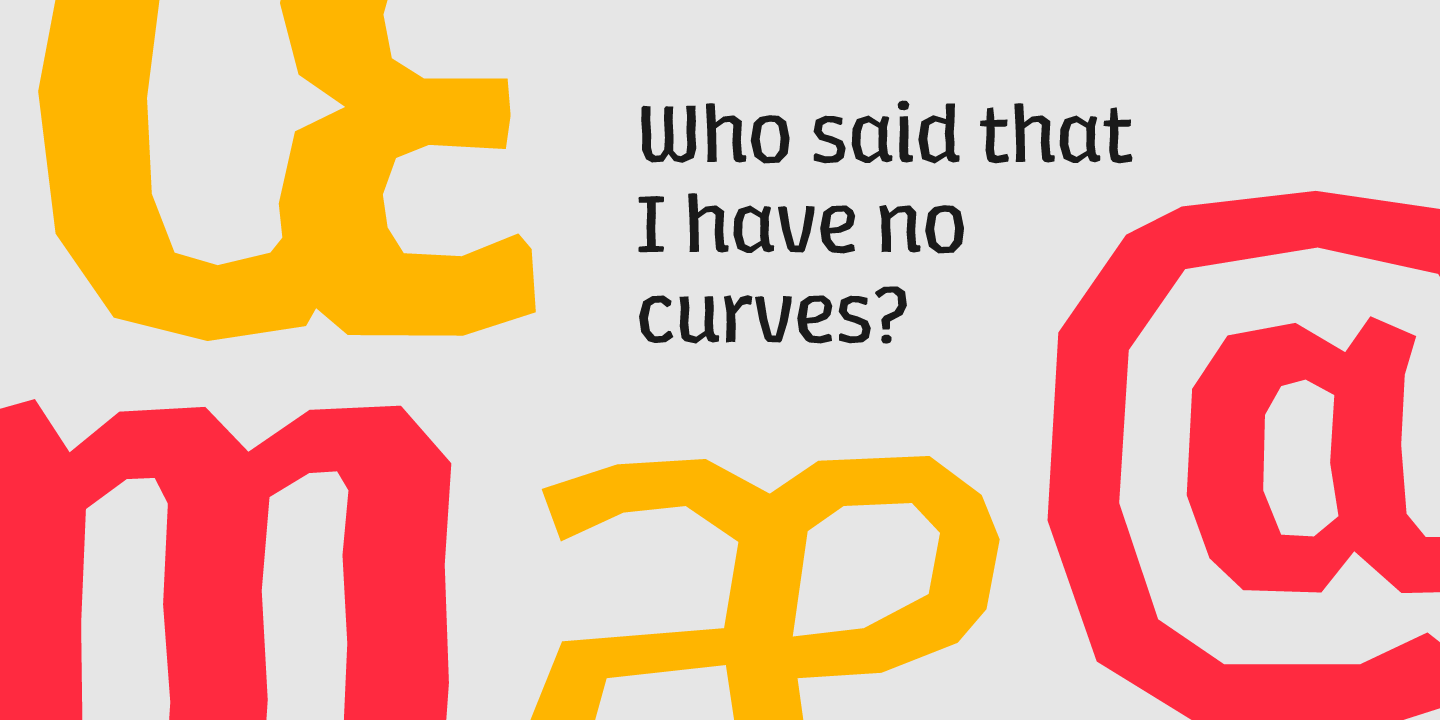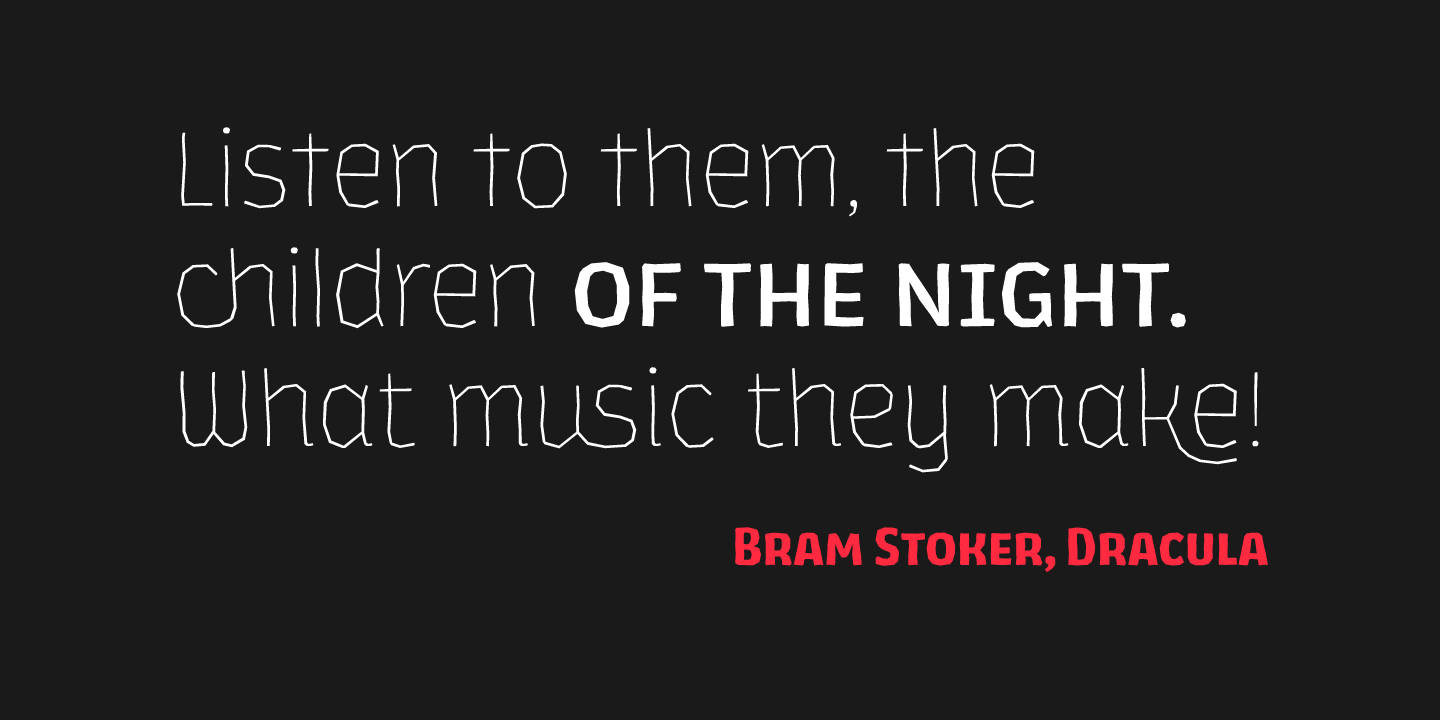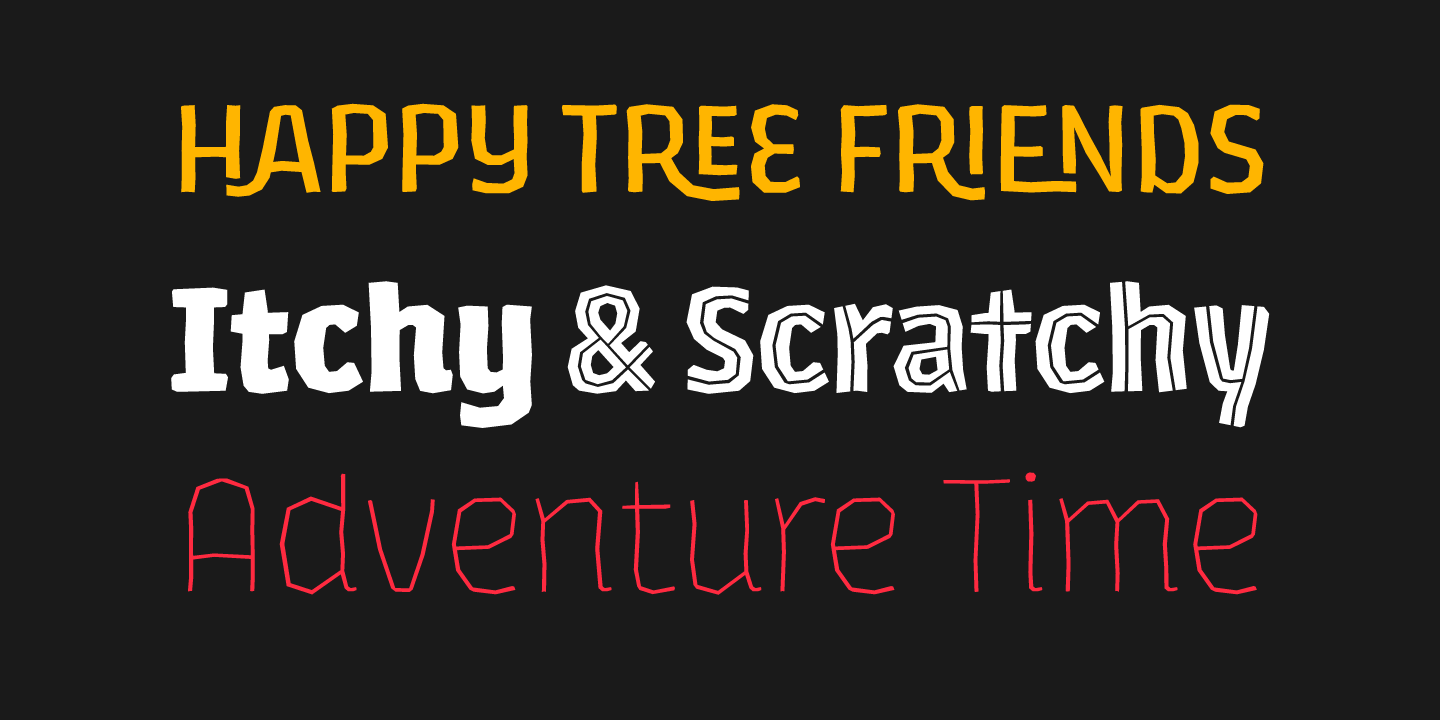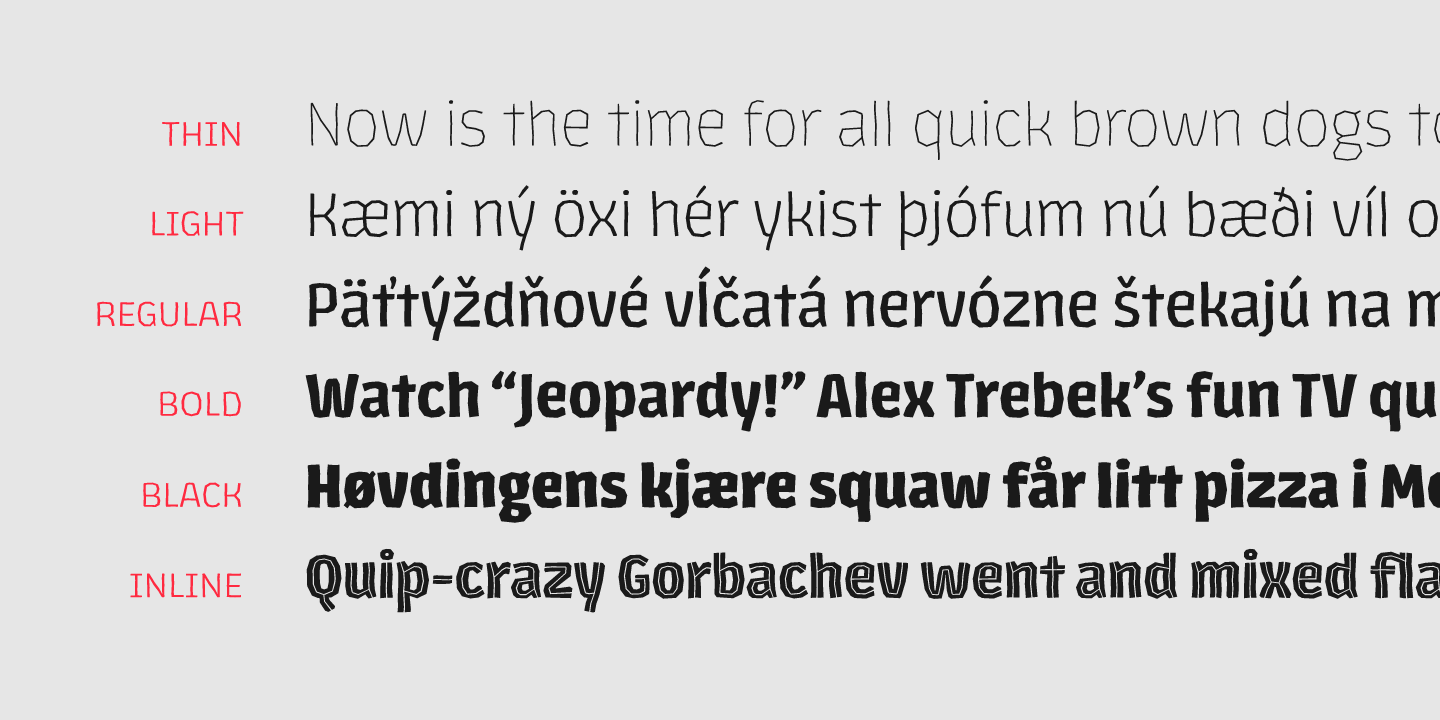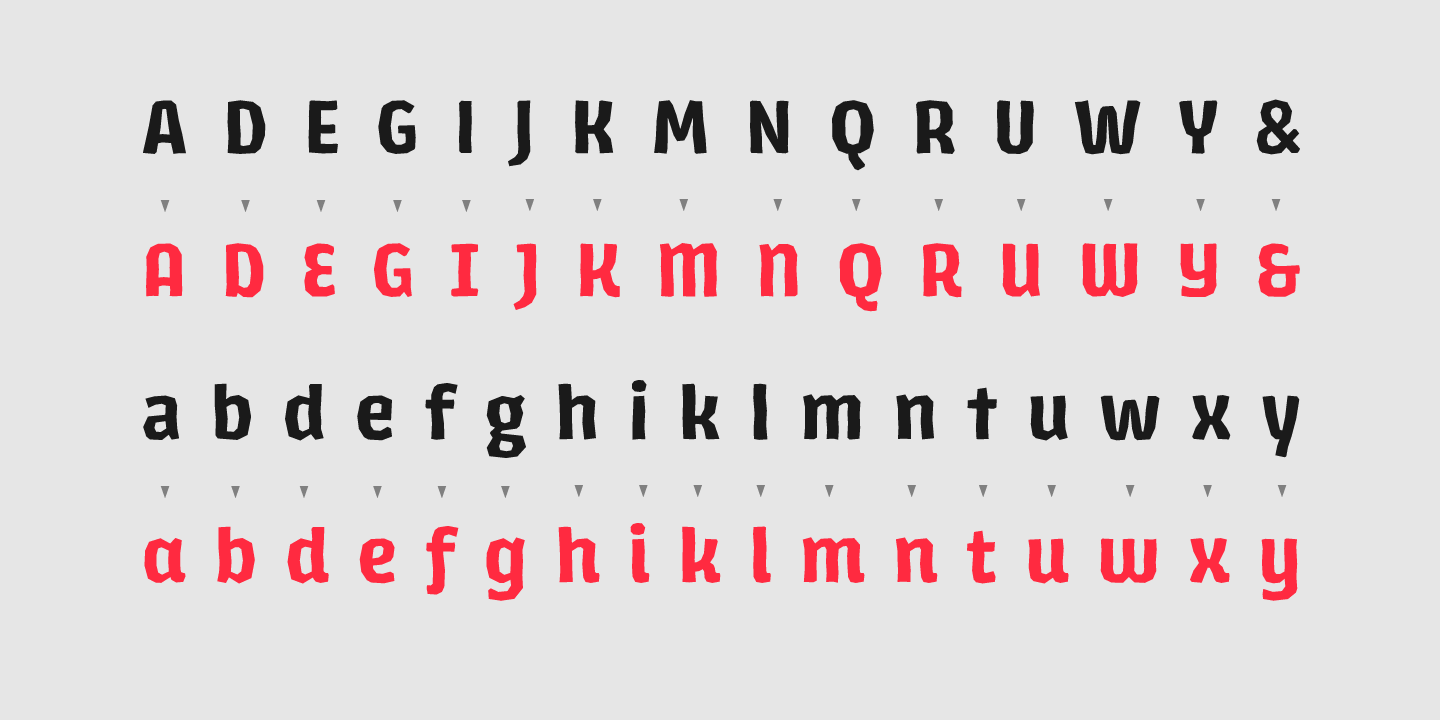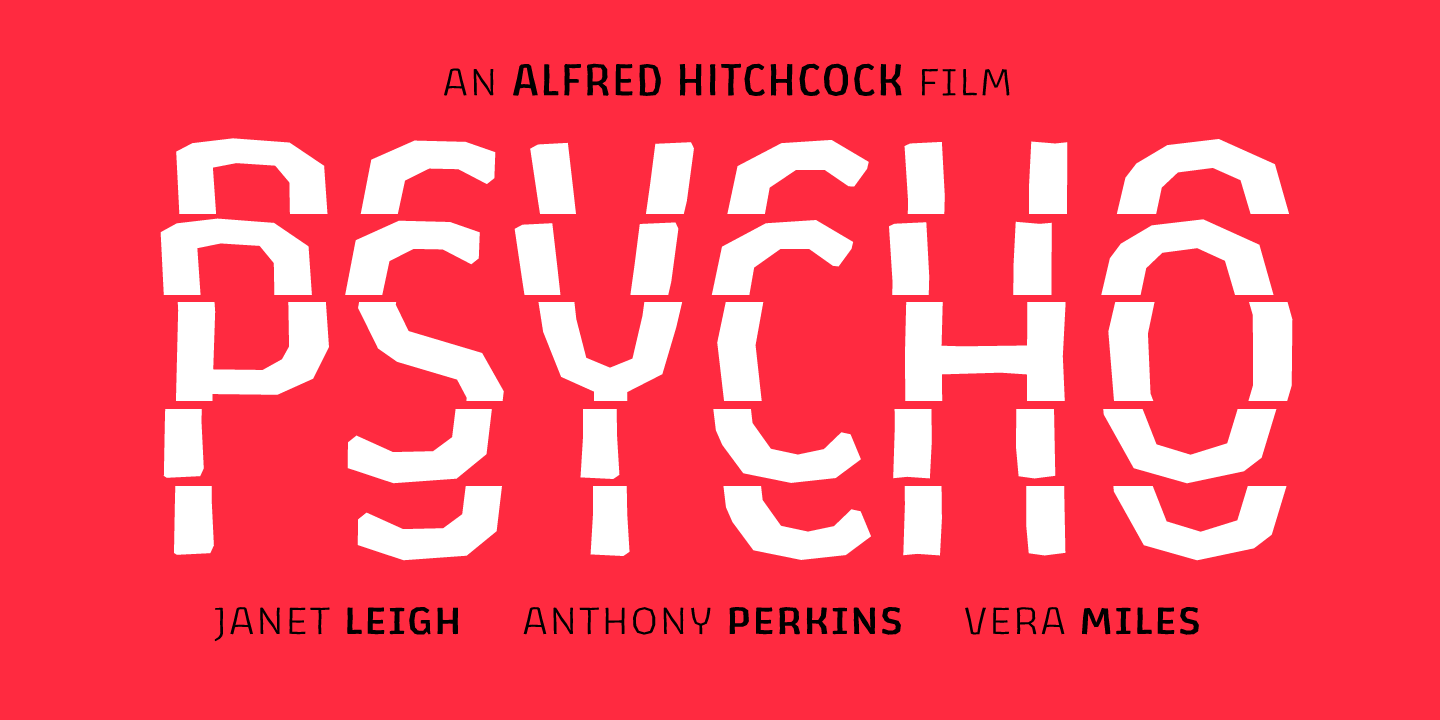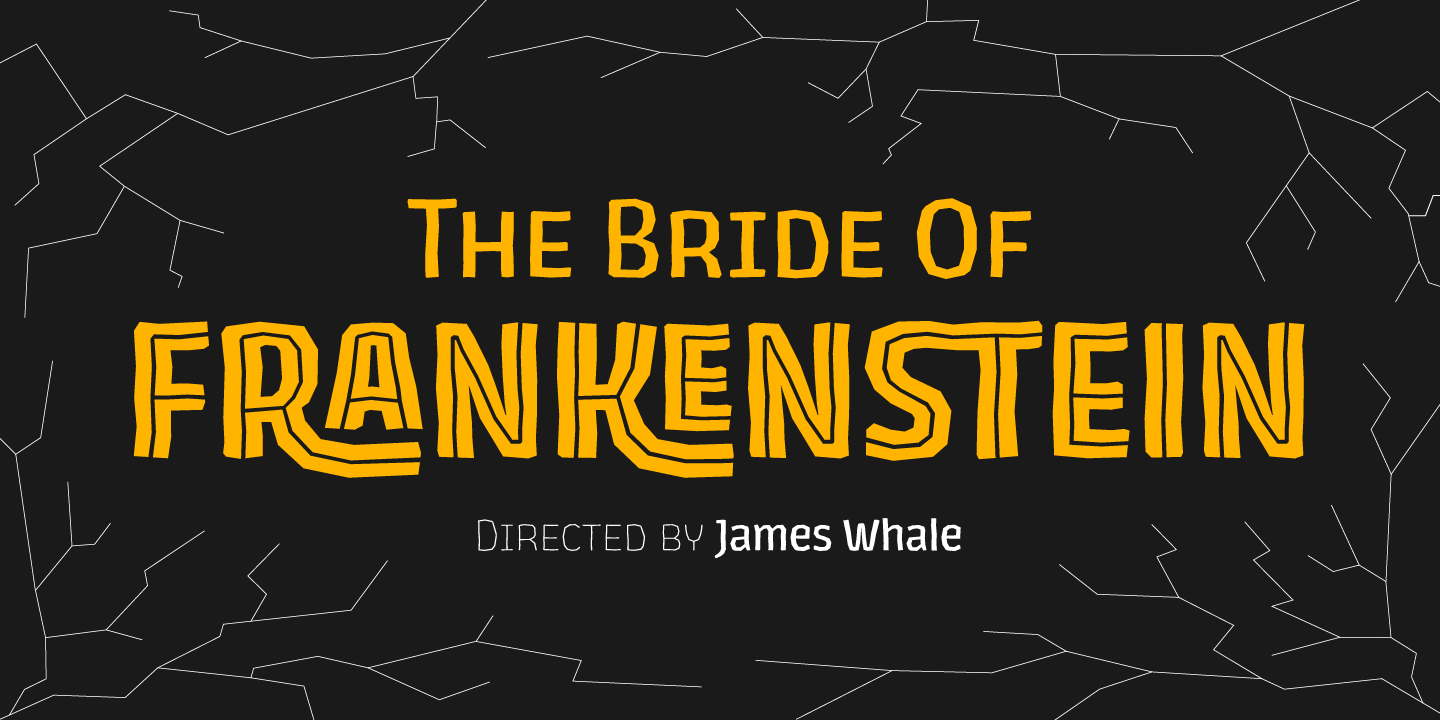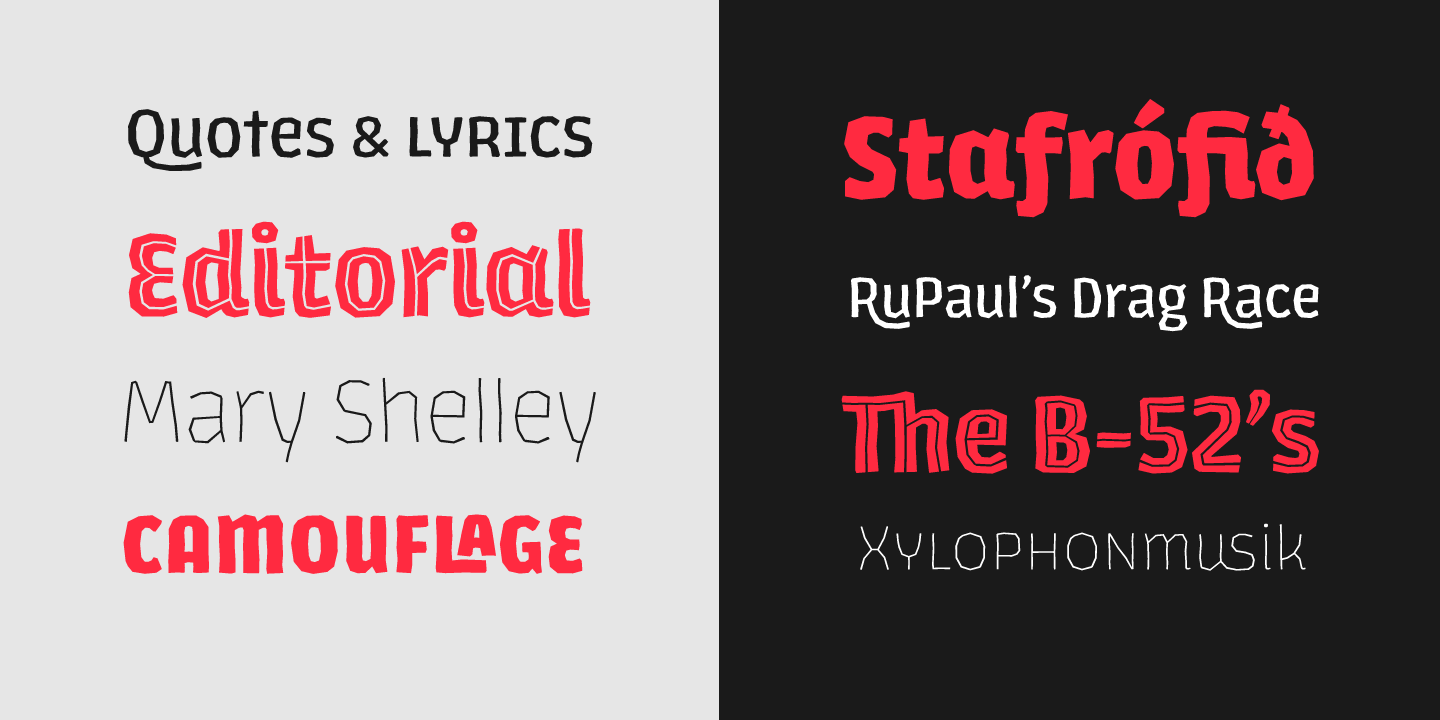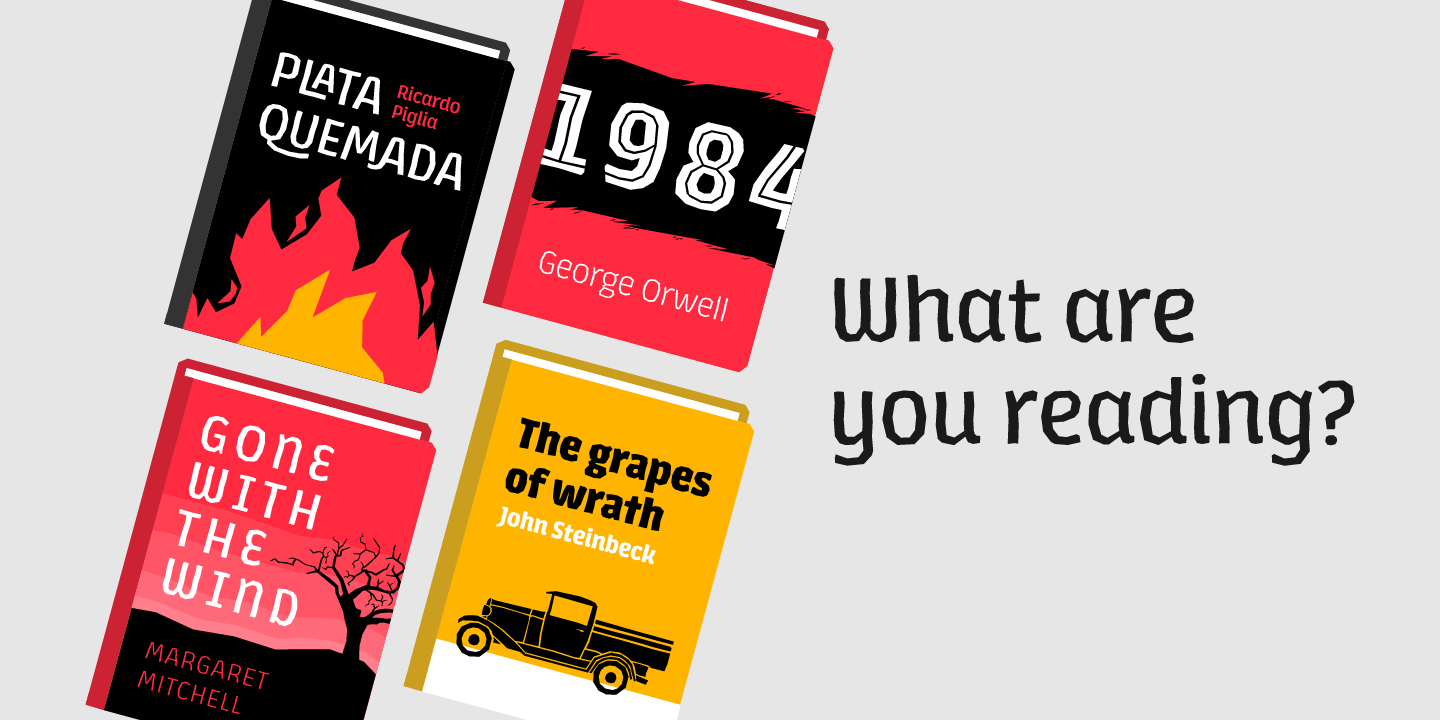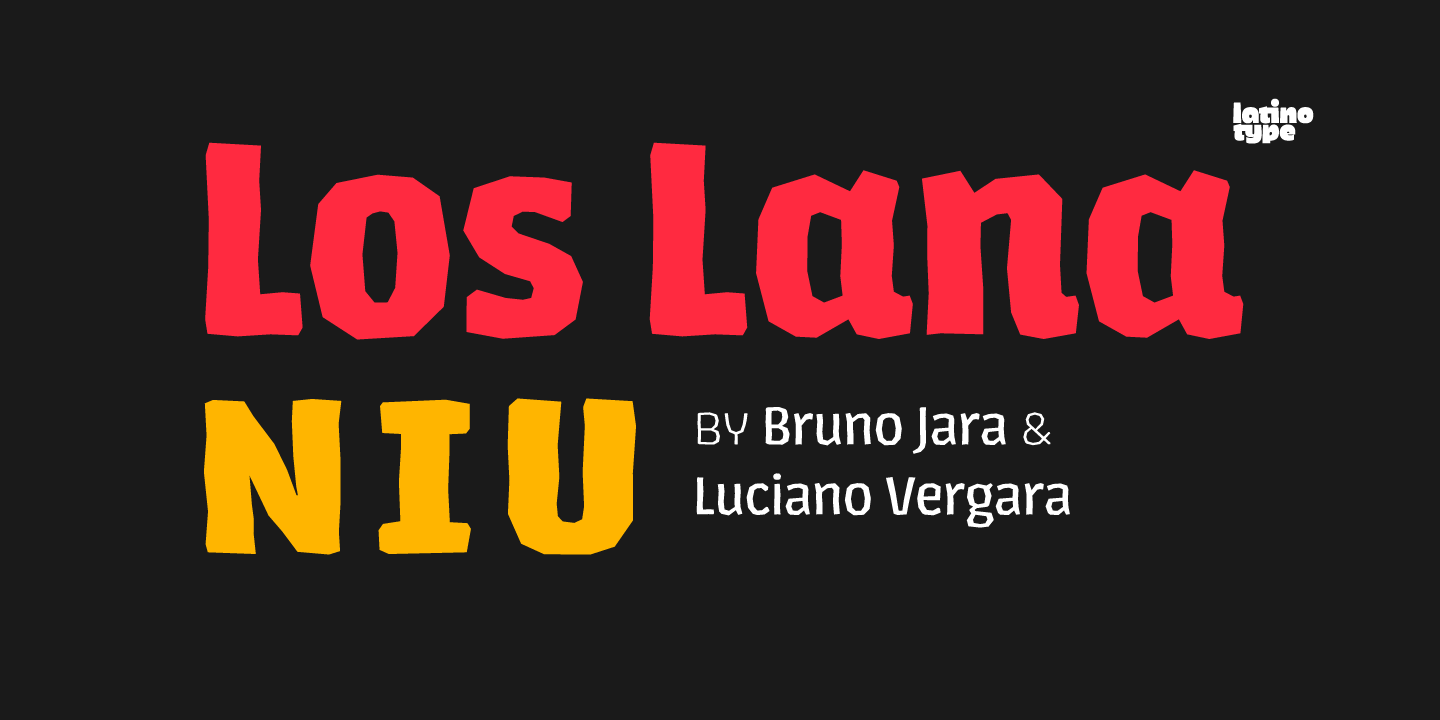
Los Lana Niu was designed by Bruno Jara and Luciano Vergara. The typeface is based on Los Lana (2007). Along with the redesign, the font has increased from 1 to 24 different styles. This new version preserves the rustic aesthetics of the original typeface, but it lacks of curves and it visually looks as if it was a nirregular font.
Los Lana Niu comes with a wide range of ligatures included in every weight: from Thin to Black. In order to offer a wide array of uses, the typeface has been structured by adding a complete family of small caps, which makes this font well-suited for headlines, posters, branding and publishing design.
Los Lana Niu comprises 3 subfamilies: Los Lana Niu Essential (392 glyphs) – including both regular and alt versions, Los Lana Niu Small Caps (392 glyphs) and Los Lana Niu (820 glyphs), which includes a variety of OpenType features such as stylistic ligatures, contextual alternates and small caps.